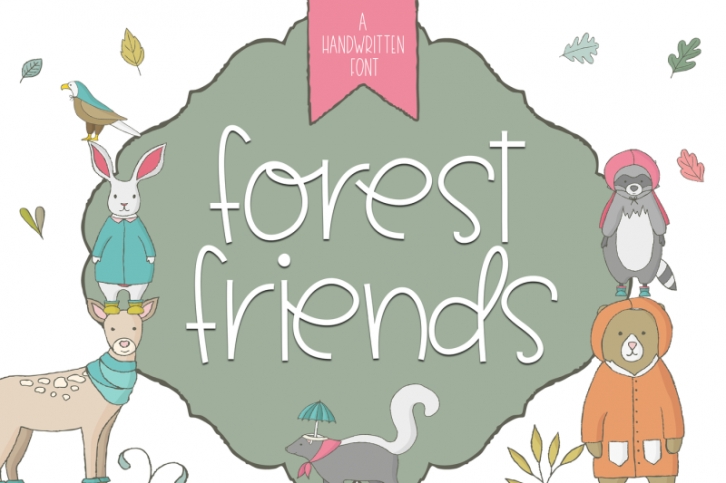
Forest Friends - A Handwritten Font Download
Forest Friends is a unique handwritten font.
This font is perfect for quotes, headings, blogs, logos, invitations and more!
There are no extra ligatures - I like to keep it simple.
This font does include accent characters.